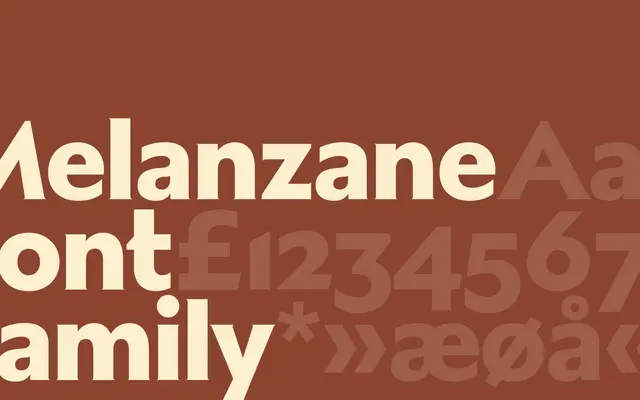
Melanzane specimen from Playtype
A display typeface from Playtype with an expressive, literary character suited to editorial and cultural contexts.
Melanzane carries a theatrical sensibility, with Playtype's promotional copy leaning into the tension between reluctance and seduction to describe its appeal. The name, Italian for aubergine, hints at a rich, characterful personality rather than neutral utility. Limited information is available on weights and language support, suggesting a focused, single-style release aimed at display and headline use.
The name and the fragmentary, dramatic copy suggest a display-oriented typeface with expressive character; insufficient detail to confirm a specific serif subcategory with certainty, but the tone points toward a literary or editorial display design.